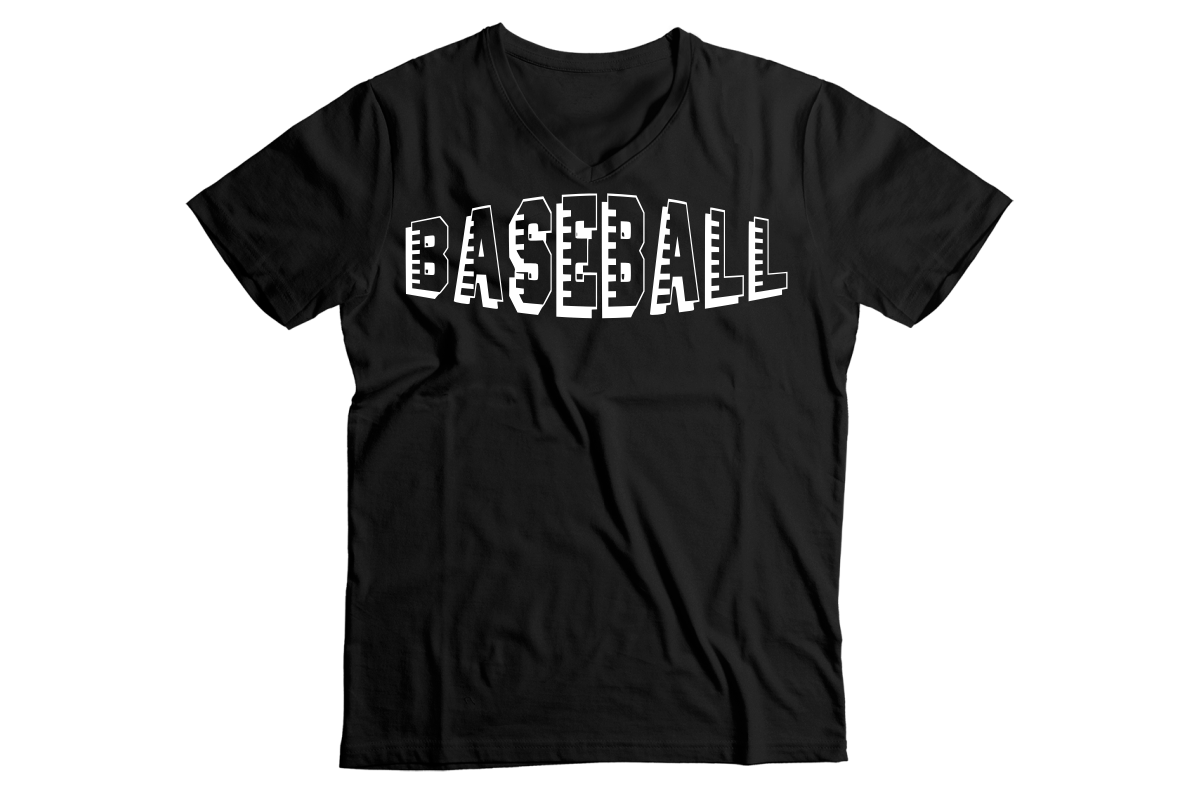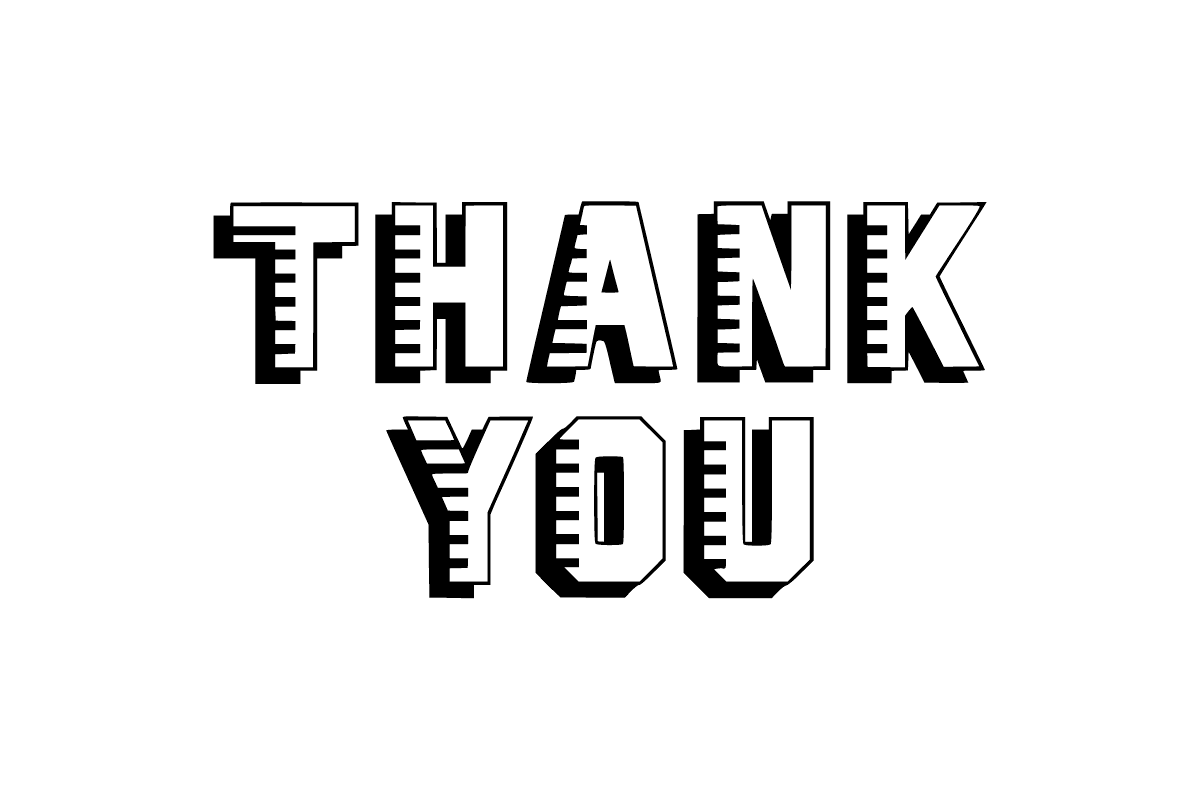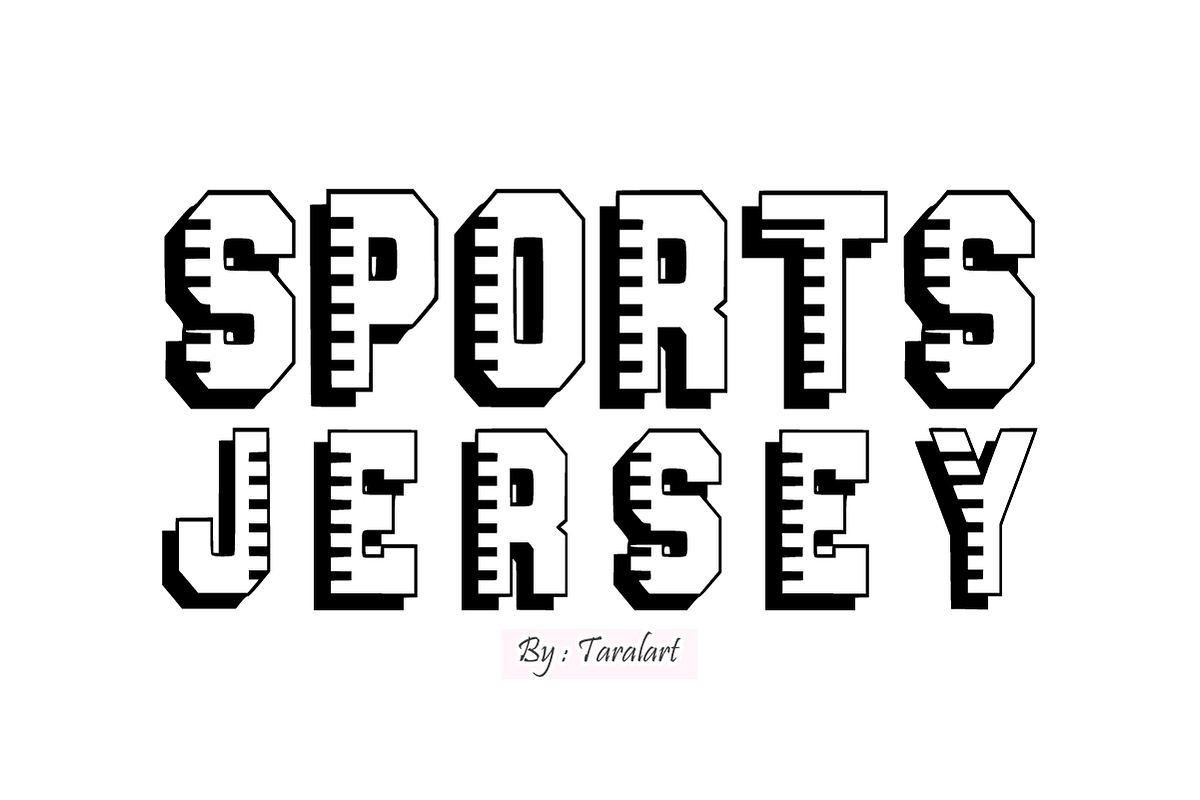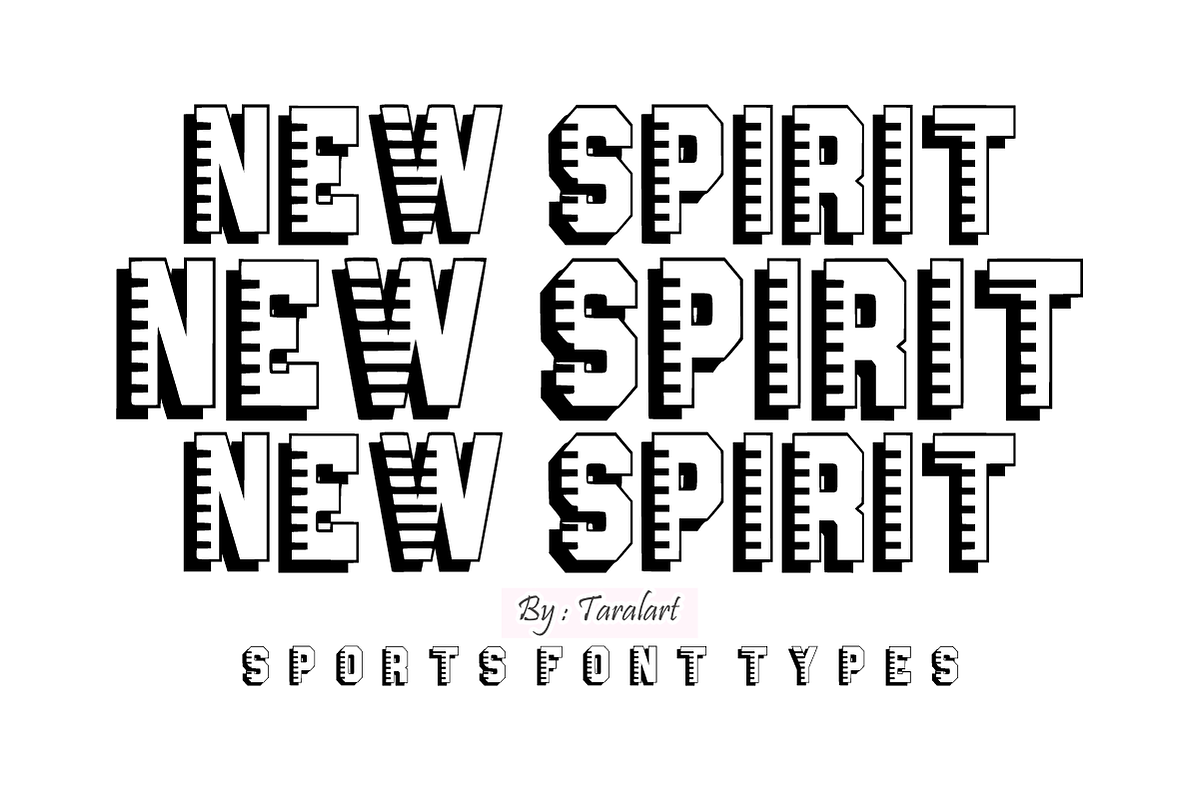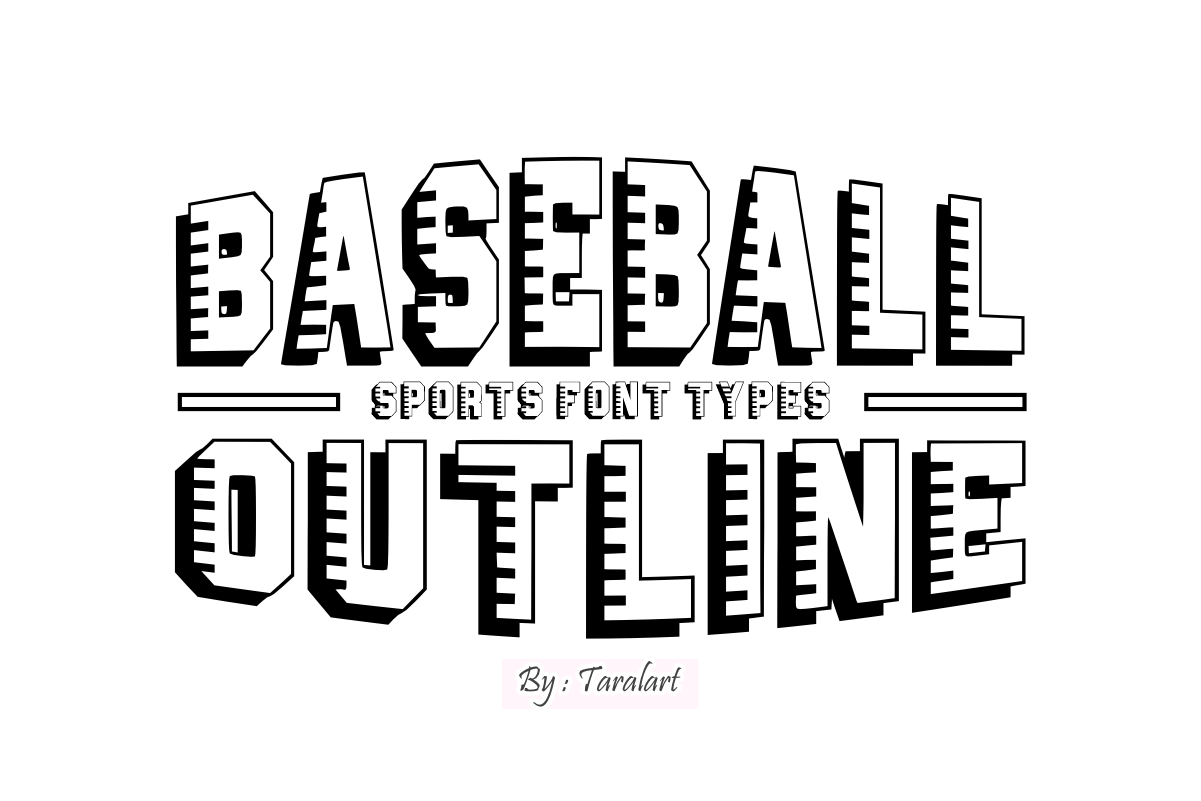
Baseball Outline - Sports Font
Hit a home run with your next design using Baseball Outline! This bold, dynamic display font features an iconic 3D extruded outline style combined with vintage athletic stadium ridges. It’s the ultimate choice for creating professional team logos, custom sports jerseys, and high-energy retro streetwear that instantly commands attention.
Perfect for sports apparel brands, game-day merchandise, and trend-focused varsity crafting, Baseball Outline delivers crisp line work and outstanding legibility. It is highly versatile, cuts beautifully on digital cutting machines like Cricut or Silhouette, and is fully optimized for all professional design software and print setups.
All-Caps Character Set (Bold 3D outline letters with classic athletic ridges)
Numbers & Simple Punctuation (Essential, clean sports-style numbers and symbols)
Team Jerseys, Baseball Uniforms, Streetwear Hoodies, & Varsity Apparel ⚾
Athletic Club Logos, Sports Branding, Gym Signage, & Game Posters 🏆
Cricut, Silhouette, & DIY Tailgate Craft Sublimation Projects ✂️
Gameday Flyers, Tailgate Invites, & College Event Banners 🏈
Custom Caps, Team Water Bottles, Sports Merch, & Product Packaging 🧢
High-Impact YouTube Thumbnails, Sports Vlogs, & Bold Social Media Layouts ✨